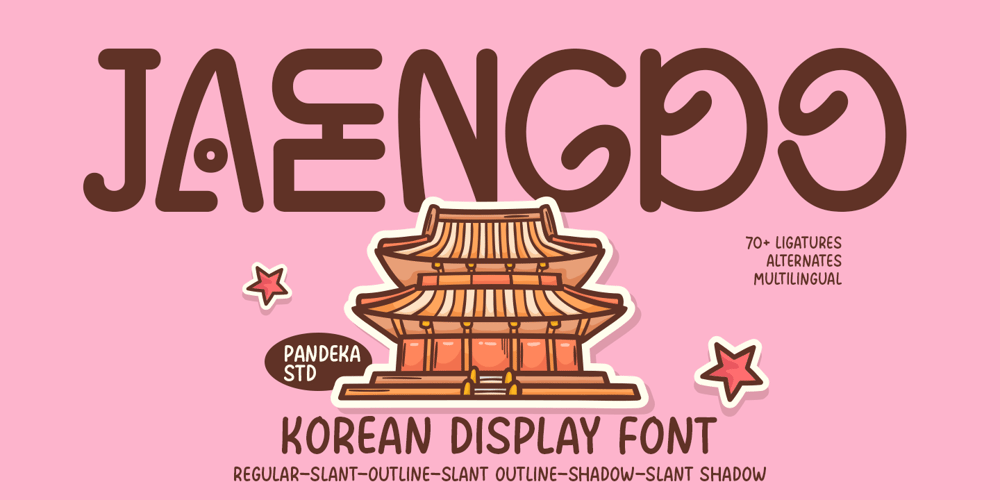
Jaengdo Font Family was designed by Sagara Nararya and published by Pandeka Studio. Jaengdo contains 6 styles and family package options. Jaengdo – A versatile Korean display typeface that blends bold lettering with traditional aesthetics and modern typography. With 6 unique styles (Outline, Outline Slant, Regular, Shadow, Shadow Slant, Slant), Jaengdo is perfect for cultural designs, branding, logos, posters, and projects that demand a unique and stylish touch.What’s Included: Main Files formats 6 Styles: Outline, Outline Slant, Regular, Shadow, Shadow Slant, Slant Full Character Set: uppercase, lowercase, numbers, symbols, punctuation and ligature 70+ Ligatures and alternates Easy to Use: Compatible with both PC & Mac Compatible with Adobe Illustrator, Photoshop, Microsoft Word, Canva, and more PUA Encoded: Fully accessible without additional software Language Support: Danish, English, Estonian, Filipino, Finnish, French, Friulian, Galician, German, Gusii, Indonesian, Irish, Italian, Luxembourgish, Norwegian Bokmål, Norwegian Nynorsk, Nyankole, Oromo, Portuguese, Romansh, Rombo, Spanish, Swedish, Swiss-German, Uzbek (Latin)Korean Display Typeface Bold Lettering Traditional Aesthetic Modern Typography Cultural Design Unique StyleWhether for traditional or contemporary themes, Jaengdo brings timeless beauty and cultural charm to your work.Thank you and happy designing!Pandeka Studio